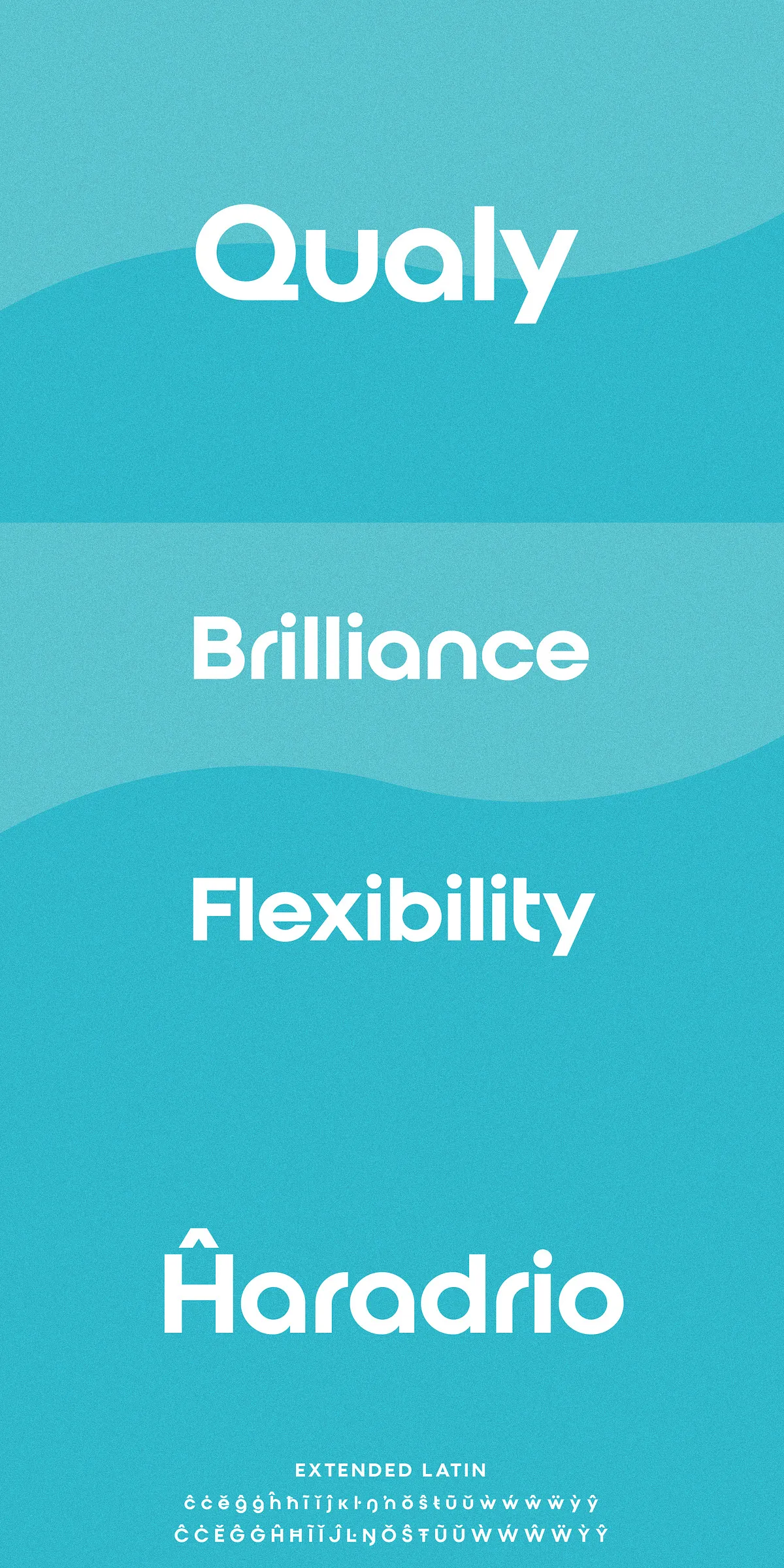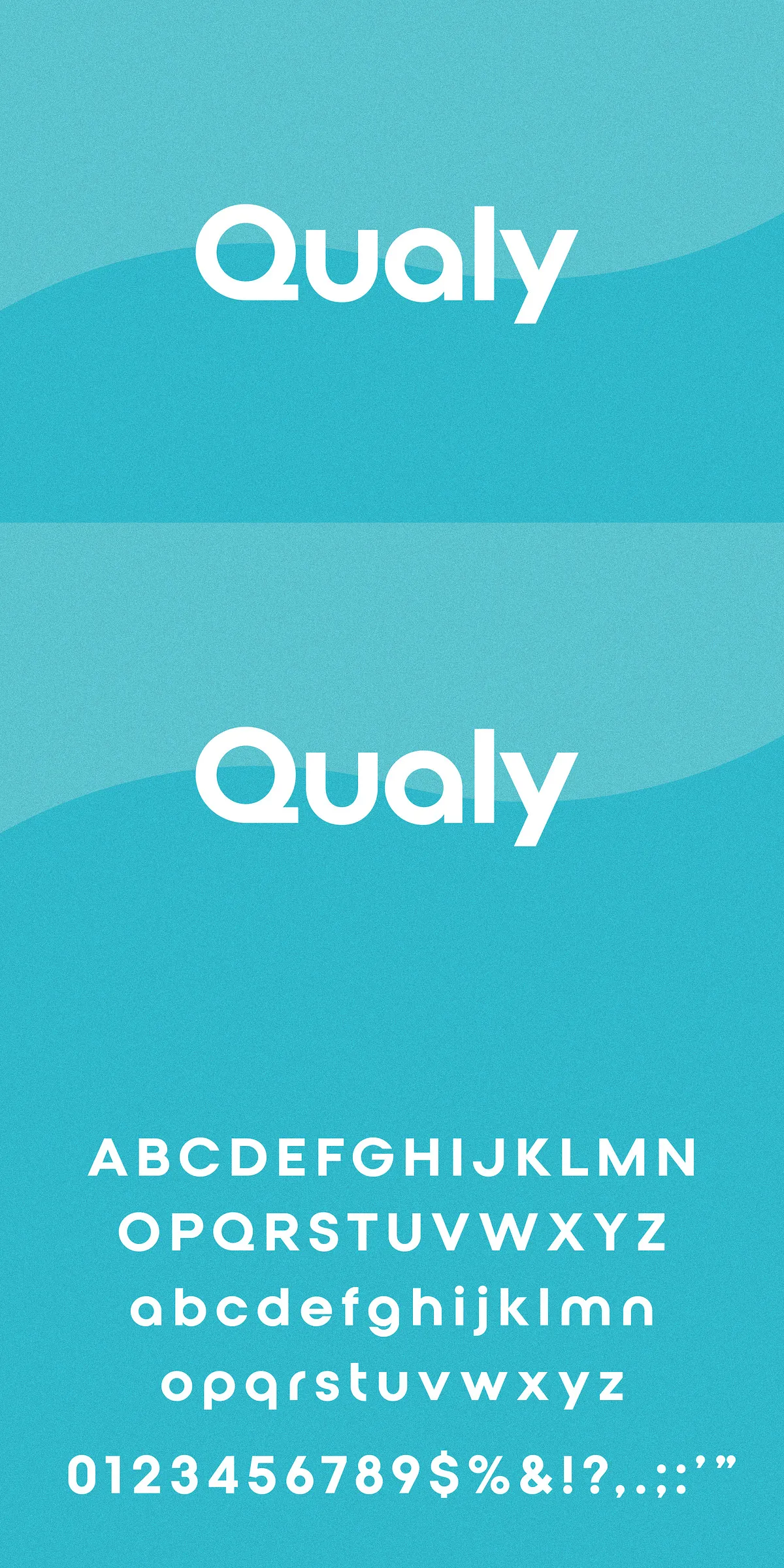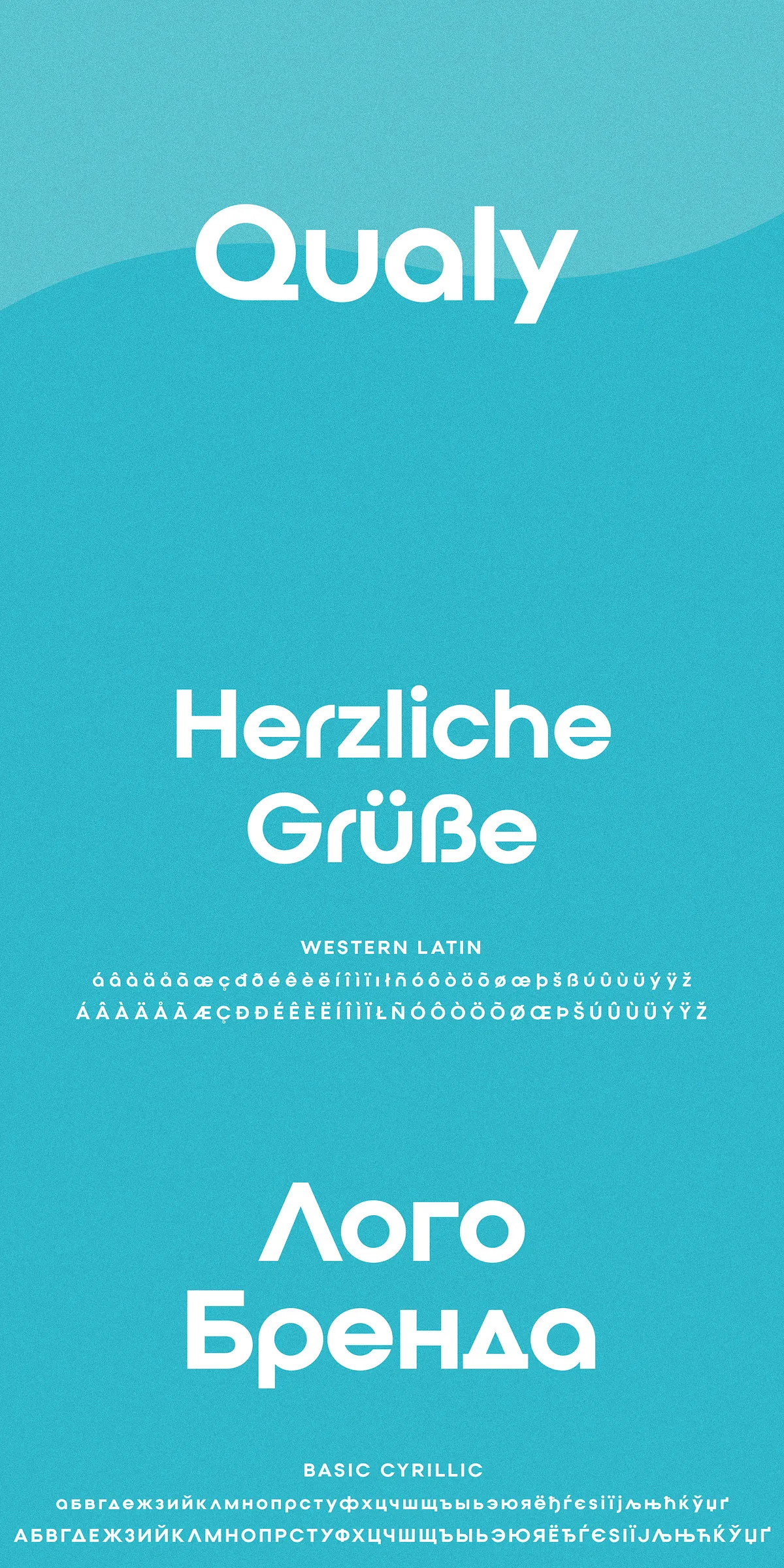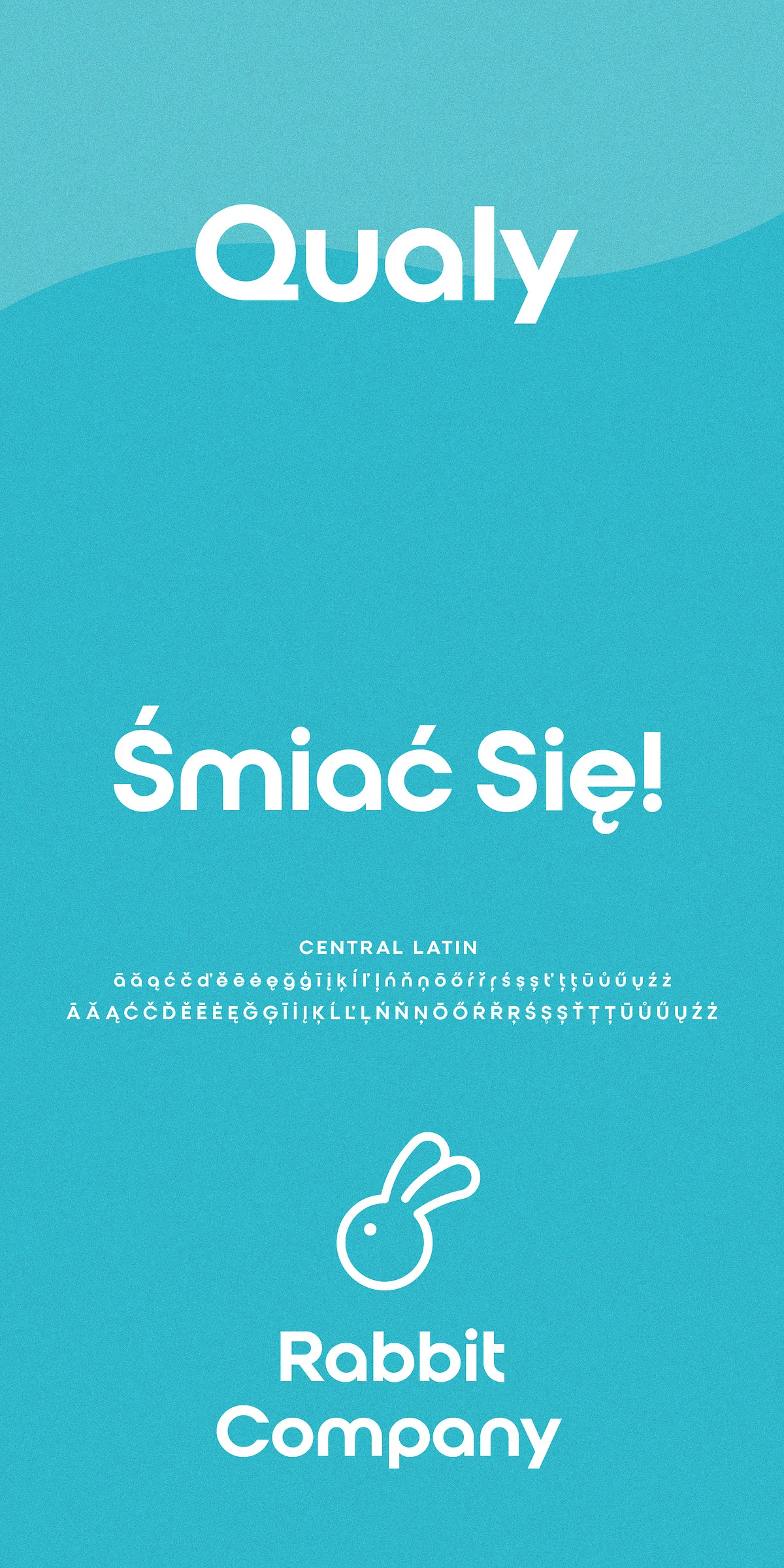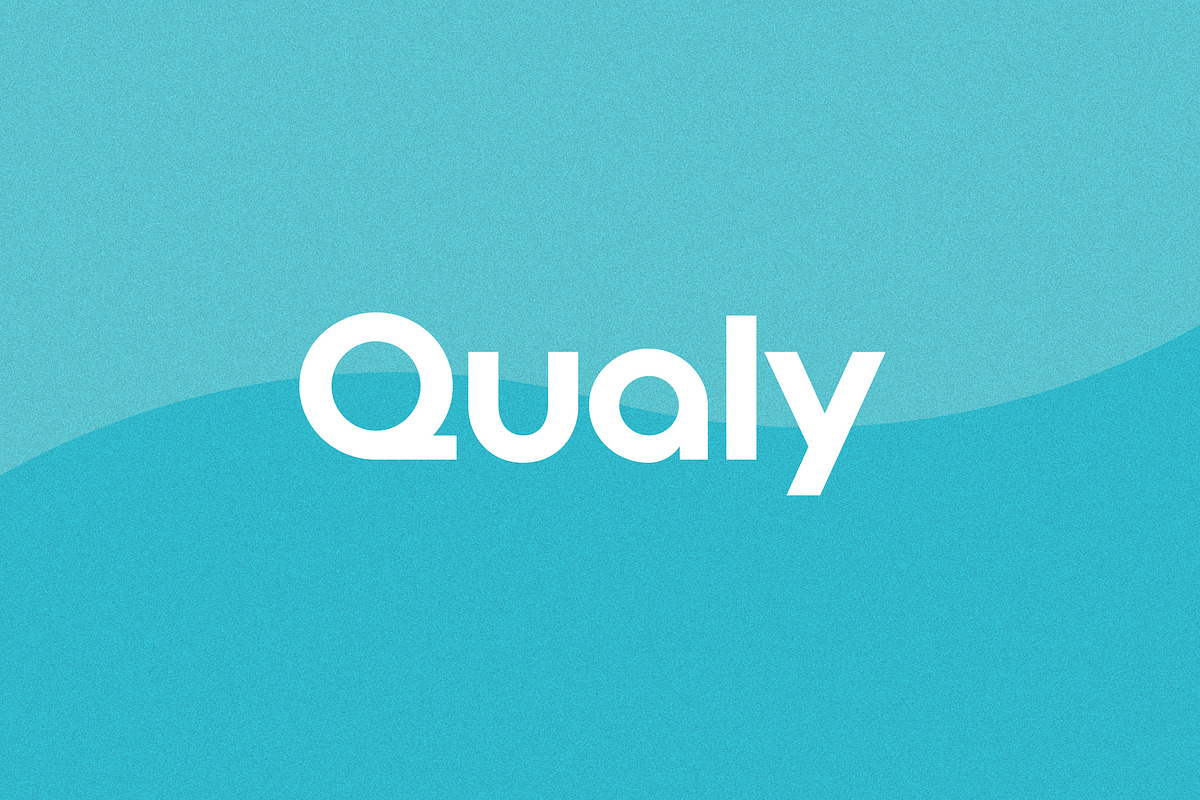
Qualy is a specially crafted font that targets designers and creatives who want to make a bold statement with their logos and branding materials. Unlike traditional typefaces designed for long passages of text, Qualy focuses its design on delivering maximum impact on brand identity. Every character in Qualy is meticulously shaped to stand out as a memorable logo element, boosting visual recognition and enhancing brand perception.
Purpose-Built for Branding and Logo Design
Unlike general-purpose fonts, Qualy takes a specialized approach by emphasizing character designs optimized for logo creation. This makes Qualy an ideal choice for businesses and designers who prioritize strong visual elements that communicate their brand’s personality instantly. Because each character is purposefully crafted to have distinct features and balanced proportions, branding materials created using Qualy enjoy heightened recognition and recall value.
Not Suitable for Extended Text Content
While Qualy excels in branding applications, it is important to note that it is not intended for long-form text or body copy. The design choices that make it perfect for logos—such as its unique character shapes and spacing—can make extended reading a challenge. Instead, Qualy should be reserved for display use where the visual identity and style demand attention and immediacy rather than sustained readability.
Enhanced Visual Identity with Every Character
Qualy’s design philosophy centers on creating bold, visually striking characters that work cohesively to develop a strong brand voice. The precise tailoring of each glyph ensures logos feel custom-crafted, with clean lines and thoughtful details accentuating the brand’s core message. This meticulous approach allows logos to not only capture attention but to also sustain visual interest over time across diverse branding platforms.
Perfect for a Variety of Branding Applications
Whether it’s business cards, product packaging, signage, or digital branding, Qualy provides versatile characters that adapt well across different media. Its design lends itself to creating logos that are modern, confident, and easily recognizable, giving brands an edge in competitive markets. Designers can trust Qualy to deliver consistent style and tone, reinforcing their client’s identity in every touchpoint.
Summary of Qualy Font Features
- Font designed especially for logo and branding purposes
- Character-driven design optimized for visual impact
- Not suitable for long passages or body text
- Perfect for branding applications including business cards, signage, and packaging
- Strong, memorable characters that boost brand recognition
Overall, Qualy stands out as a focused and dynamic font choice for creative professionals seeking to elevate their branding projects with a typeface carefully tailored for logos. Its unique character design delivers a powerful visual identity, making it an essential tool for modern brand development.